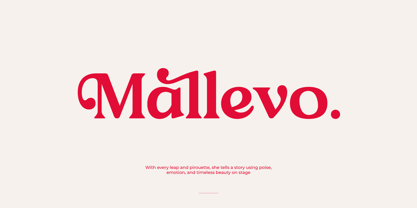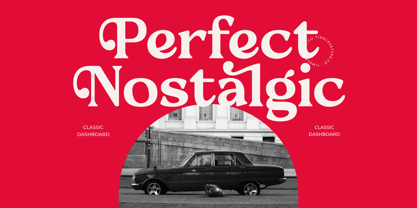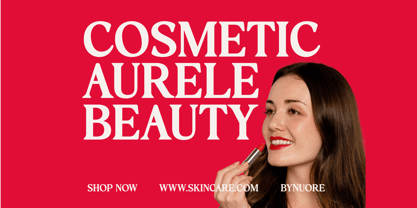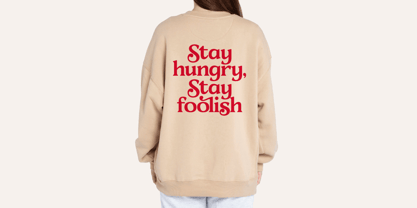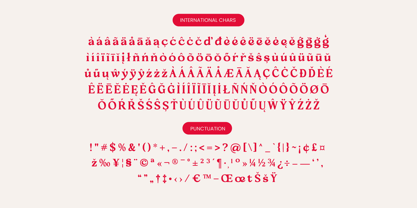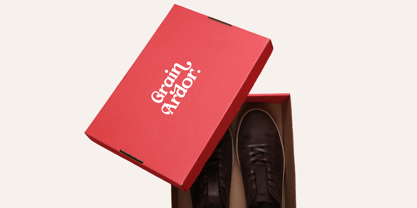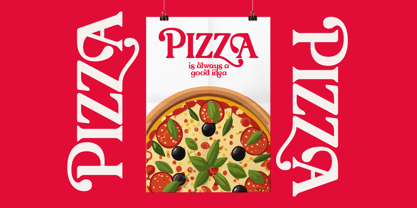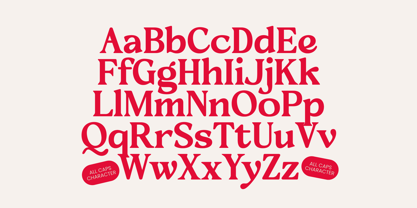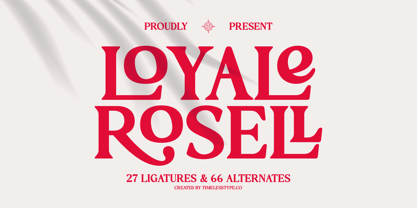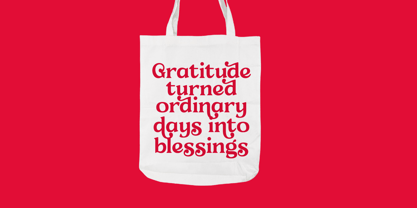
Loyale Rosell
by Timelesstype Studio
The Loyale Rosell Font Family was designed by Heru Utama Putra and published by Timelesstype Studio. Loyale Rosell contains 2 styles and family package options.
Loyale Rosell - Modern Serif Display , from Timelesstype, Suitable for any projects such as: logos, branding projects, homeware designs, product packaging, mugs, quotes, posters, shopping bags, t-shirts, book covers, name card, invitation cards, greeting cards, label, photography, watermark, special events, and all your other luxury and beautiful projects that need a Luxury Serif taste.